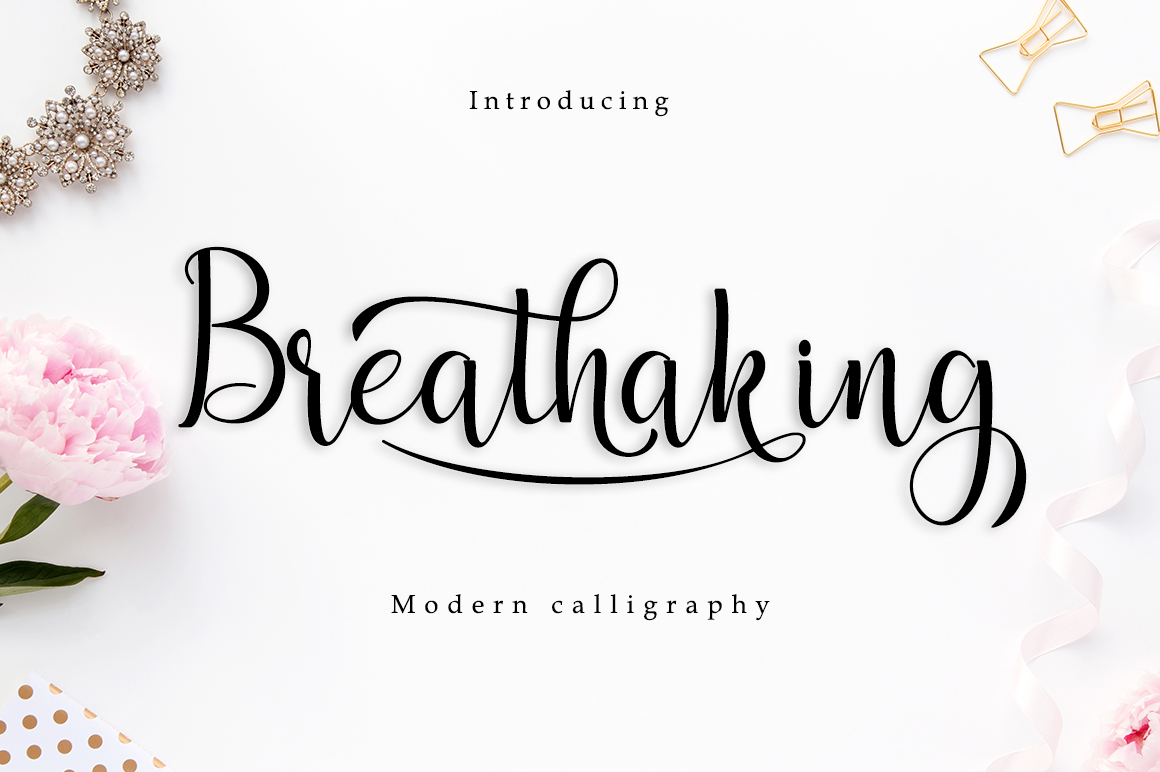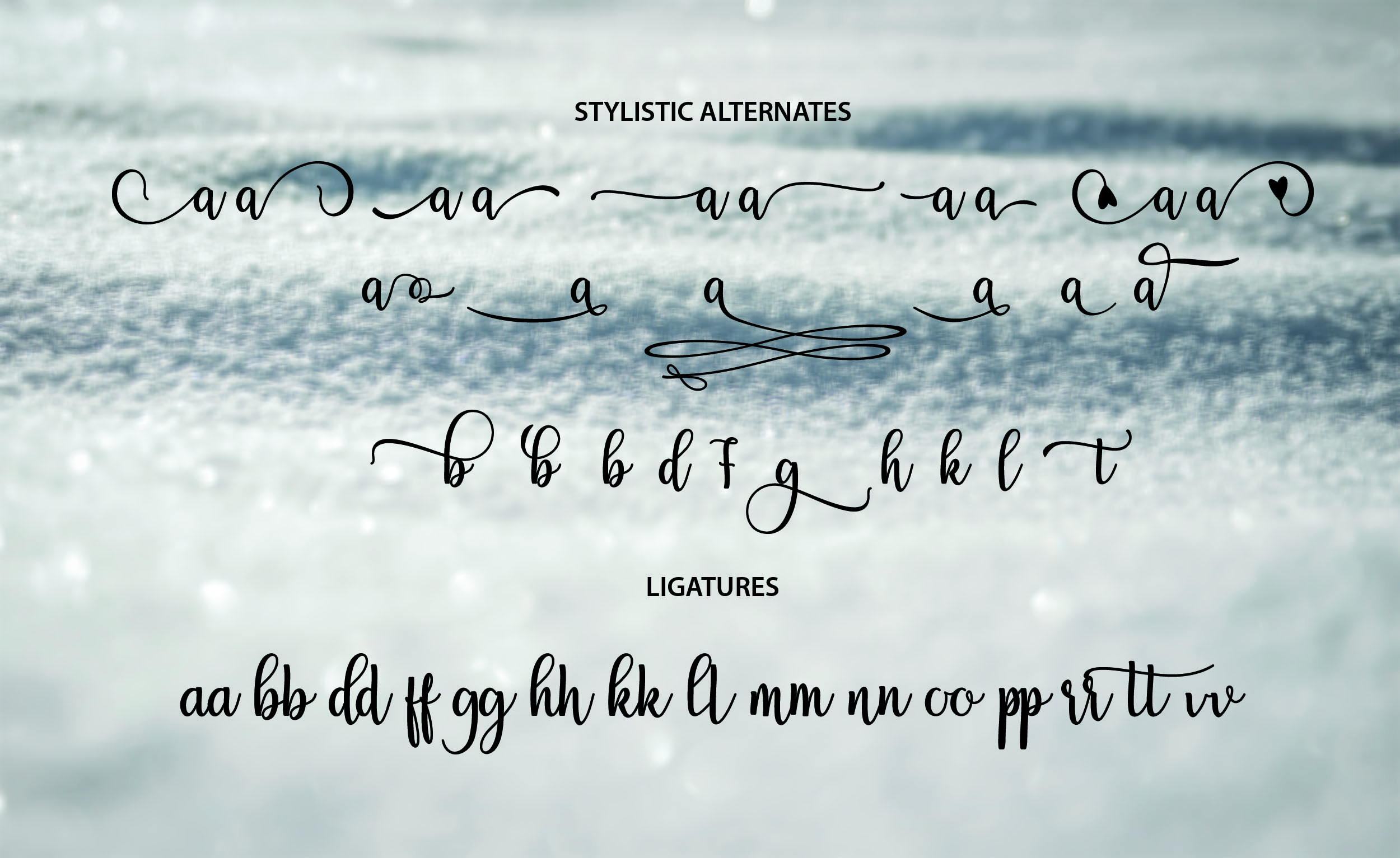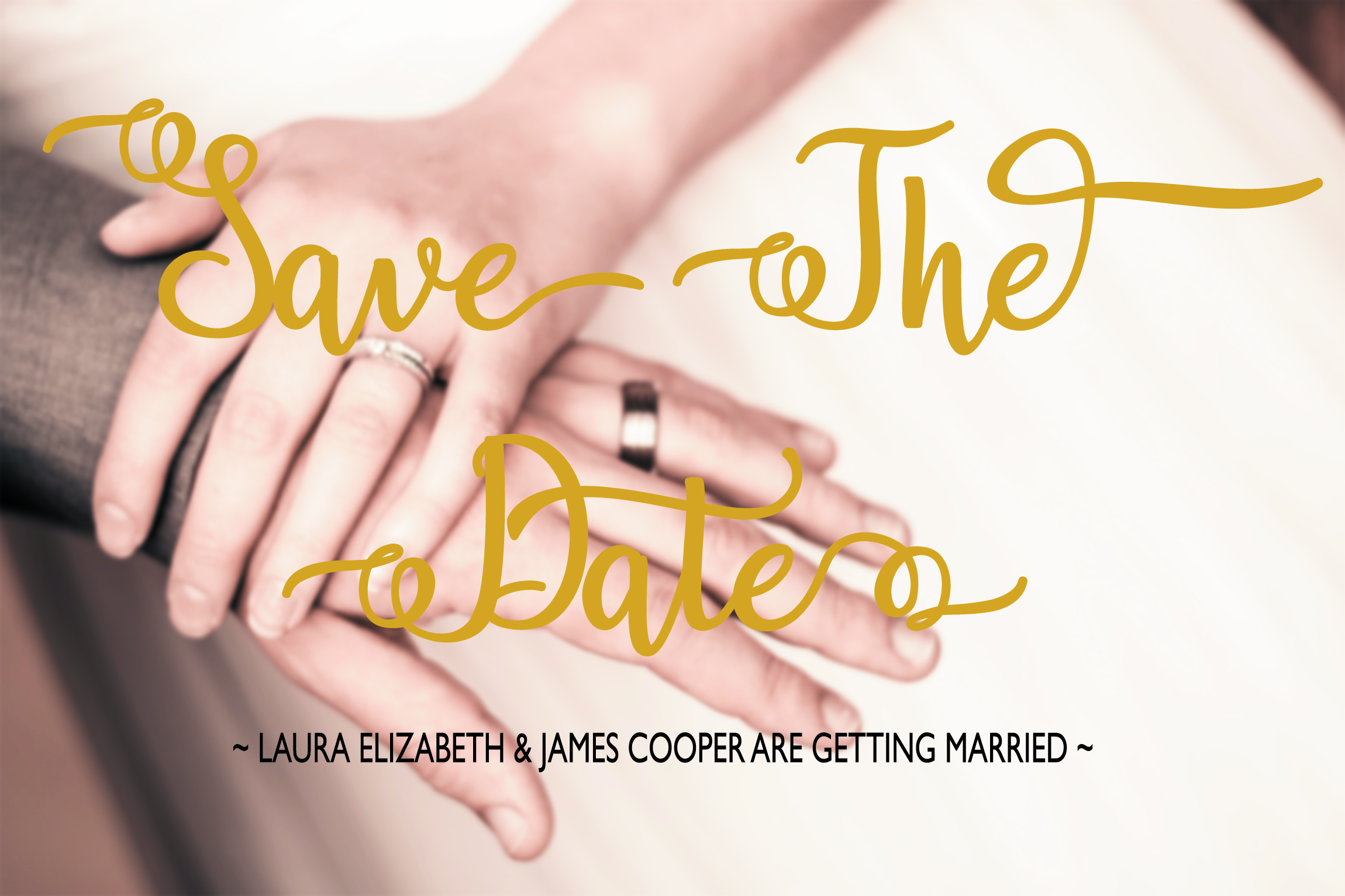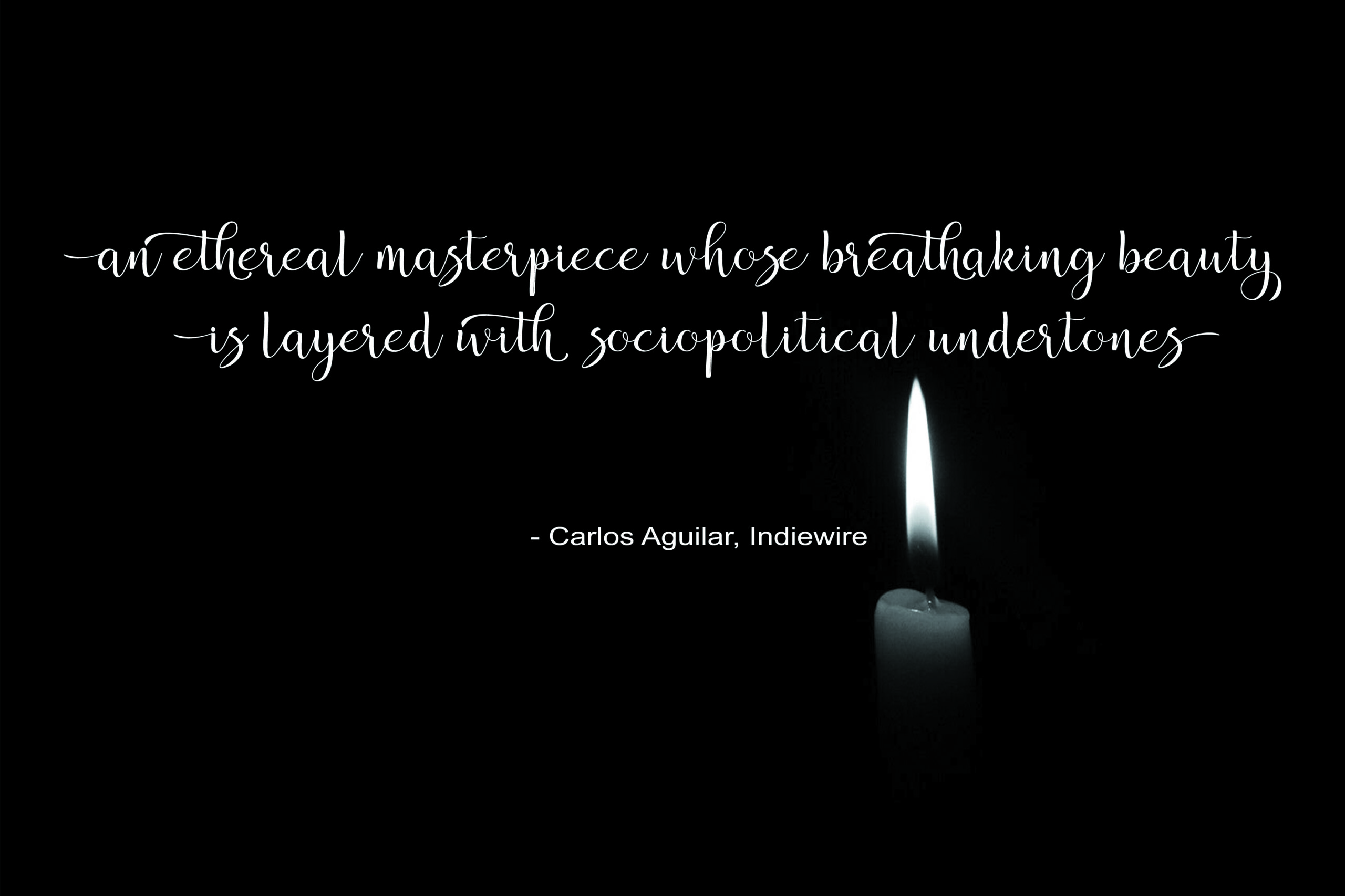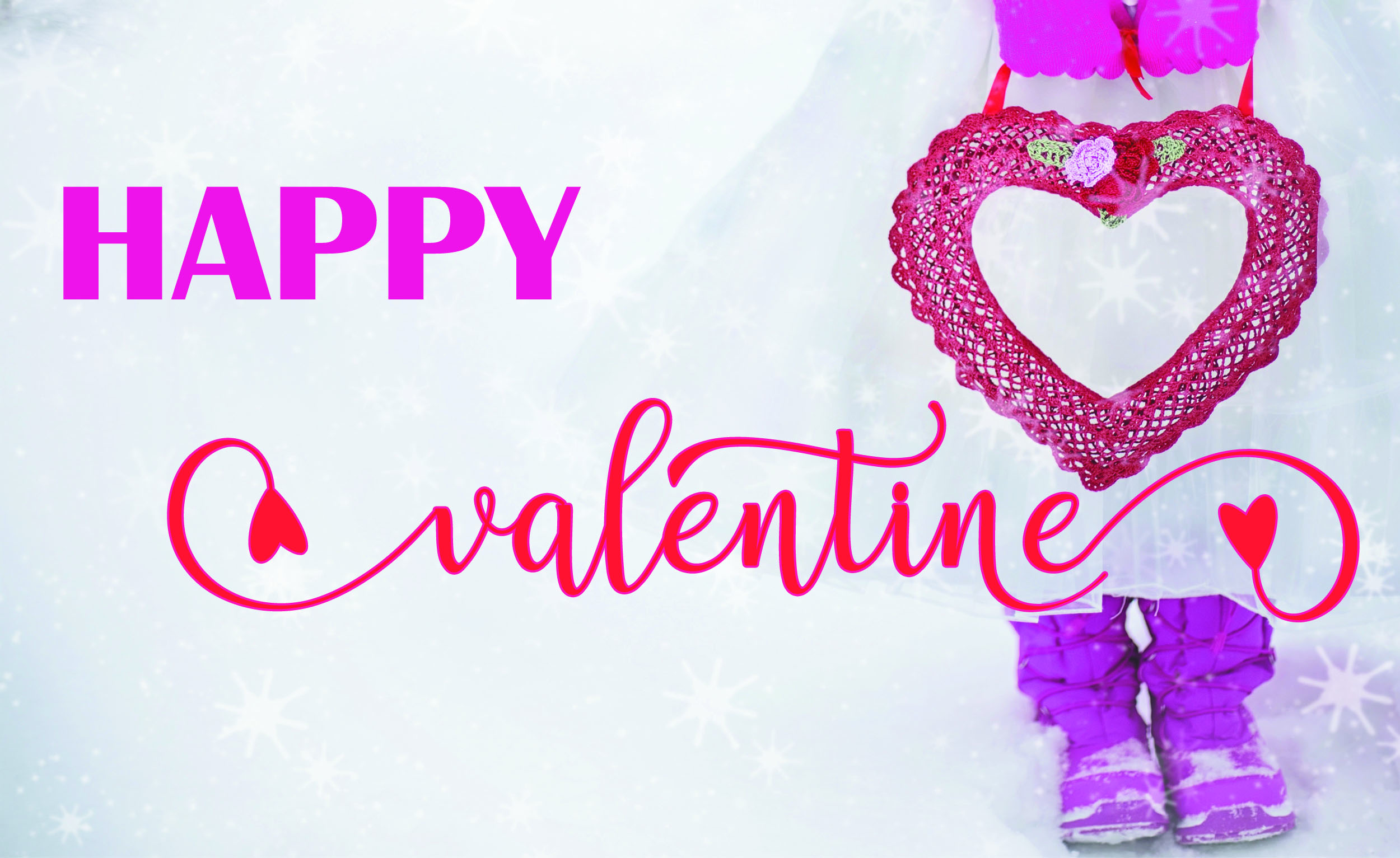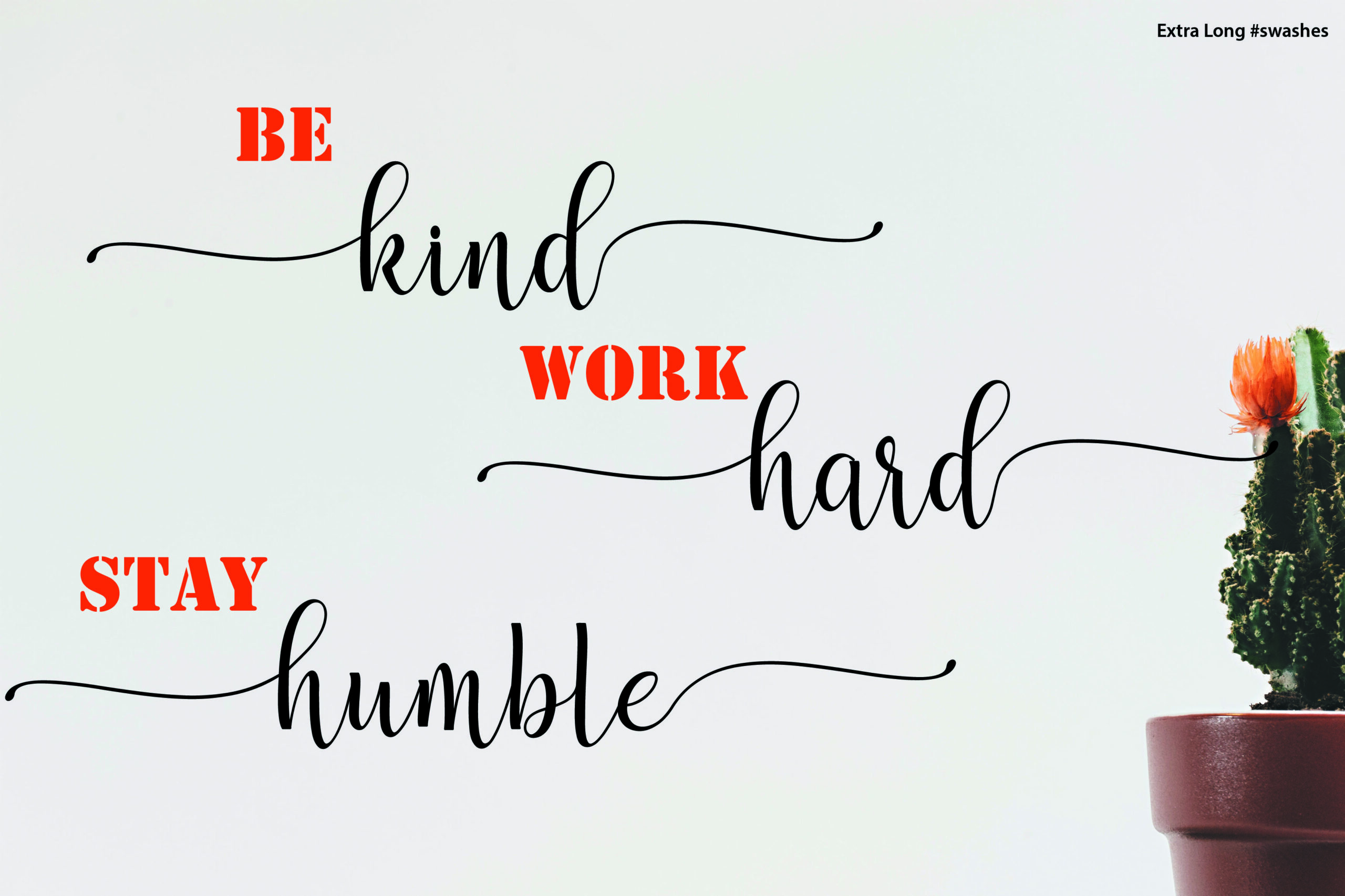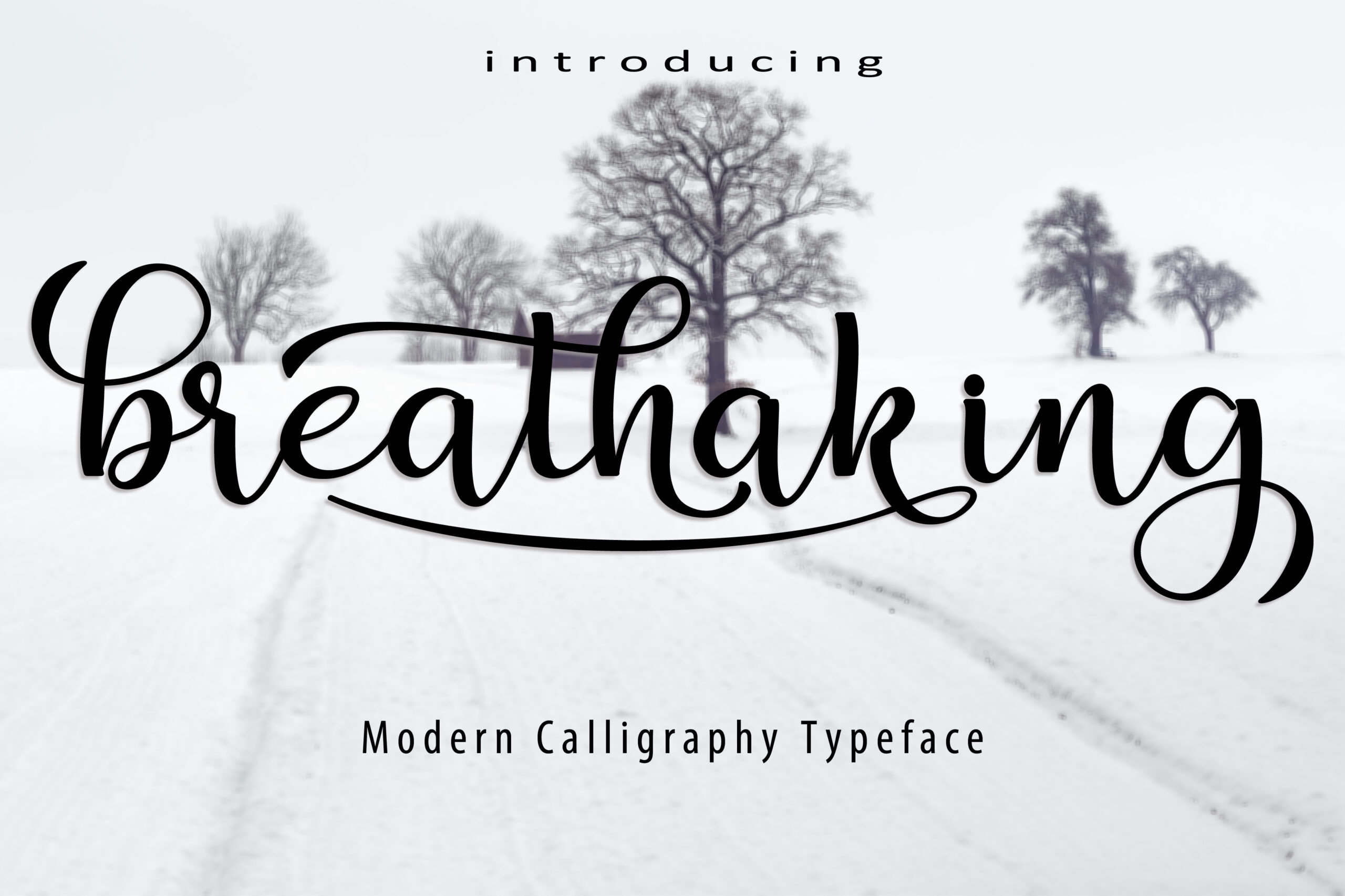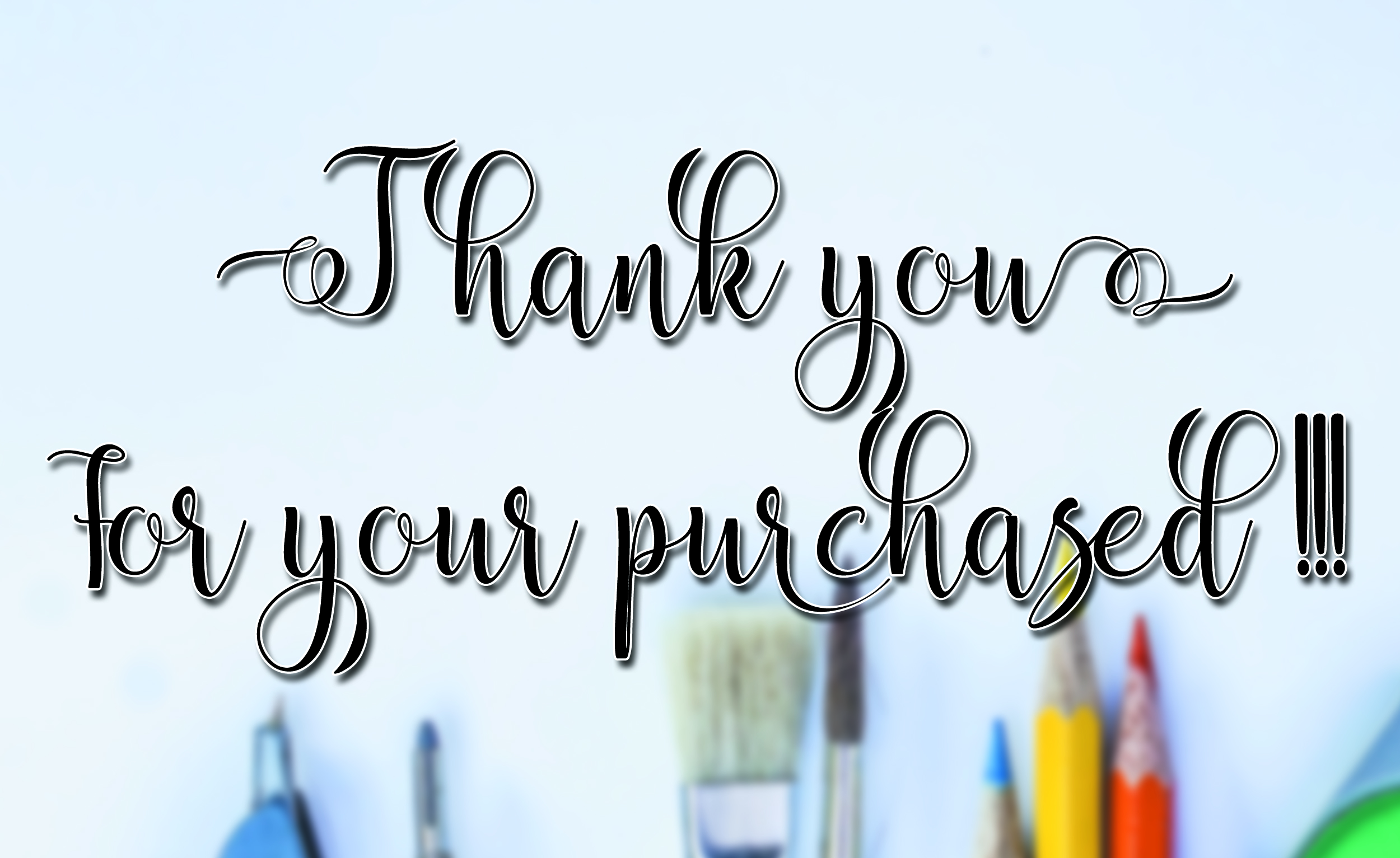
Breathaking Font
About Breathaking Font
Breathaking is a beautiful script font with tons of alternates, making it ideal for unique and special project types. This font is romantic and flourished, and can elevate your type-based projects in an elegant and feminine way.